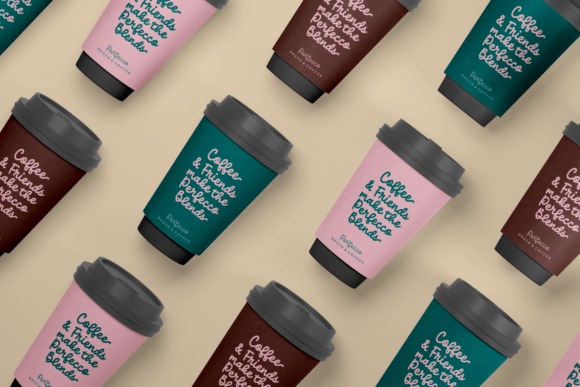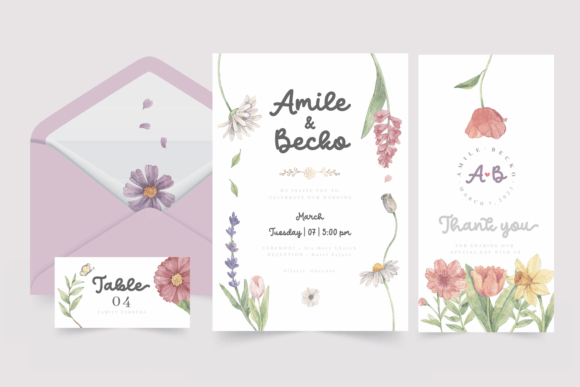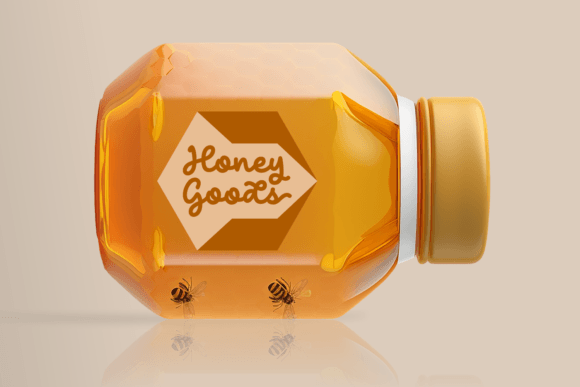
Creative Sisterhood Font
Creative Sisterhood is a cute and quirky handwritten font with an incredibly friendly feel. Whether you’re looking for fonts for Instagram or handwritten scripts for DIY projects, it will turn any creative idea into a true piece of art!